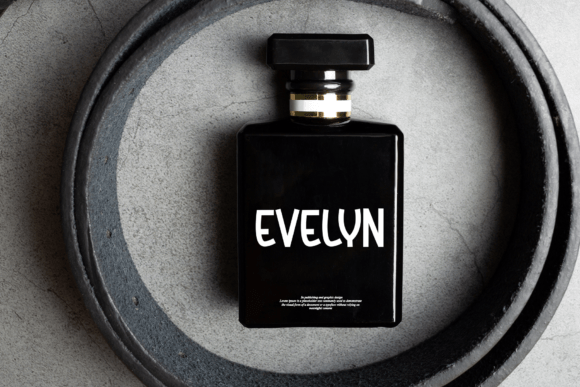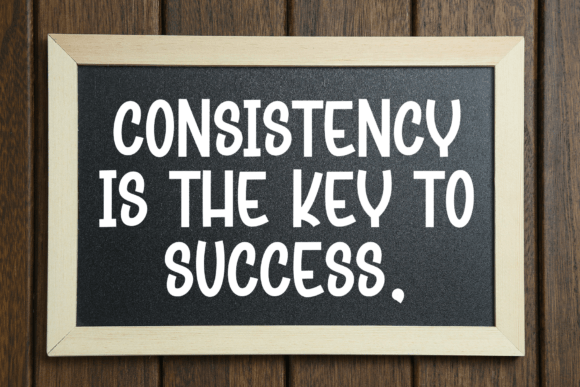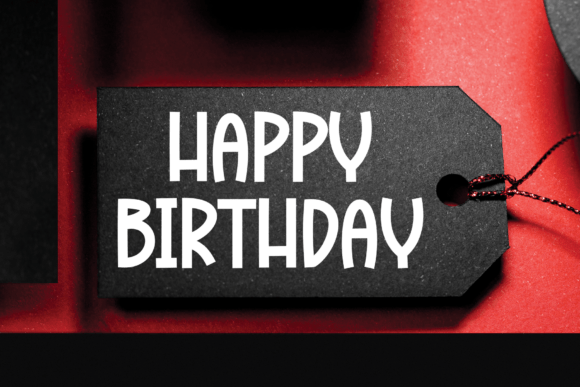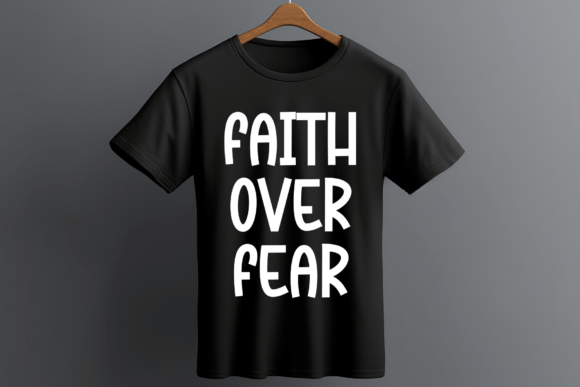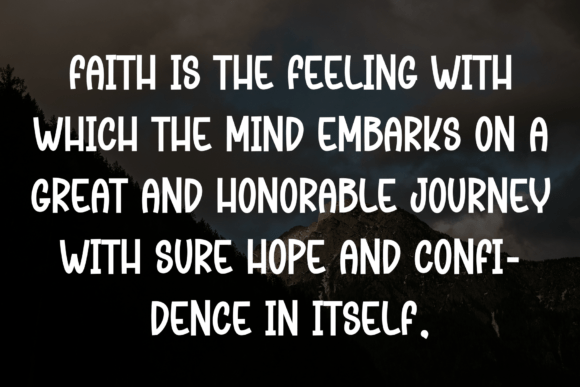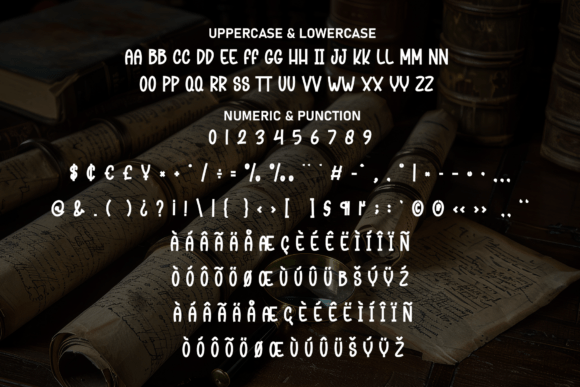
Introducing Black History Font: A Powerful Display Typeface
Are you looking for a font that embodies the spirit of Black History and culture? Look no further than the Black History Font, a bold and authentic display typeface that captures the essence of the past while inspiring the future. This stunning font is designed to convey a sense of historical gravity and human touch, making it perfect for a variety of applications, from independent museum exhibitions to social media headers.
The Design Behind Black History Font
The Black History Font features bold, hand-drawn sans-serif letterforms with a tall, condensed silhouette that exudes confidence and strength. The slightly irregular terminals add a touch of human touch, giving the font a sense of organic and rhythmic alignment. The heavy weight of the font ensures that it stands out, making it perfect for high-impact applications where you want to make a statement.
Perfect for Cultural and Educational Branding
The Black History Font is specifically designed for use in cultural and educational branding, making it an ideal choice for independent museum exhibitions, educational institutions, and documentary film titles. The font’s bold and authentic style ensures that it commands attention, while its rhythmic and organic alignment adds a touch of sophistication and elegance.
Key Features of Black History Font
- Bold and hand-drawn sans-serif letterforms: Giving the font a unique and authentic style.
- Tall and condensed silhouette: Making the font perfect for headlines and titles.
- Slightly irregular terminals: Adding a touch of human touch and organic feel.
- Heavy weight: Ensuring the font stands out in any application.
- Rhythmic and organic alignment: Adding a touch of sophistication and elegance.
Use Cases for Black History Font
The Black History Font is versatile and can be used in a variety of applications, including:
- Independent museum exhibitions: The font’s bold and authentic style makes it perfect for exhibition titles and branding.
- Educational cultural branding: The font’s rhythmic and organic alignment makes it ideal for educational institutions and cultural organizations.
- Documentary film titles: The font’s heavy weight and bold style make it perfect for documentary film titles.
- Social media headers: The font’s bold and attention-grabbing style makes it perfect for social media headers, especially for heritage and justice-related content.
Why Choose Black History Font?
The Black History Font is a unique and powerful display typeface that offers a range of benefits, including:
- Authenticity: The font’s bold and hand-drawn style ensures that it captures the essence of Black History and culture.
- Versatility: The font can be used in a variety of applications, from exhibitions to social media headers.
- Impact: The font’s heavy weight and bold style ensure that it stands out and commands attention.
The Black History Font is a powerful and authentic display typeface that is perfect for designers and crafters looking to capture the essence of Black History and culture. With its bold and hand-drawn sans-serif letterforms, tall and condensed silhouette, and slightly irregular terminals, this font is sure to make a statement. Whether you’re working on an independent museum exhibition, educational cultural branding, documentary film titles, or social media headers, the Black History Font is the premier choice.